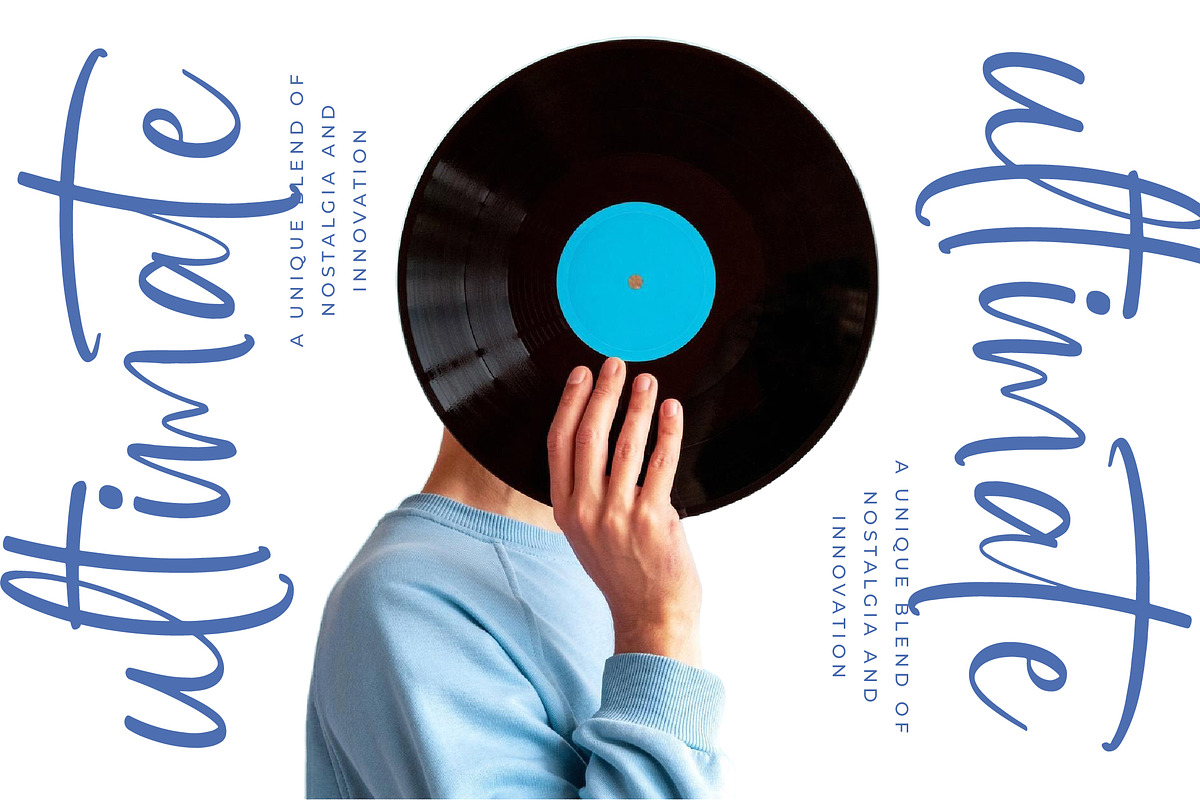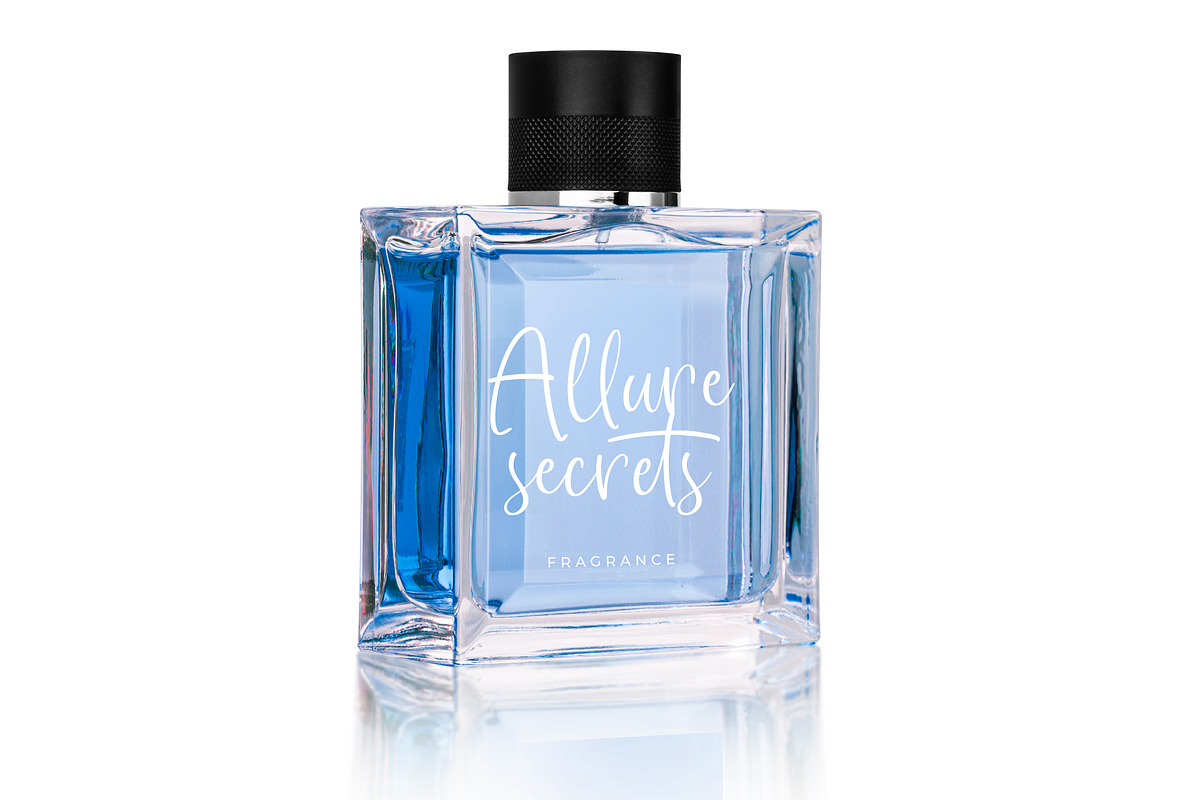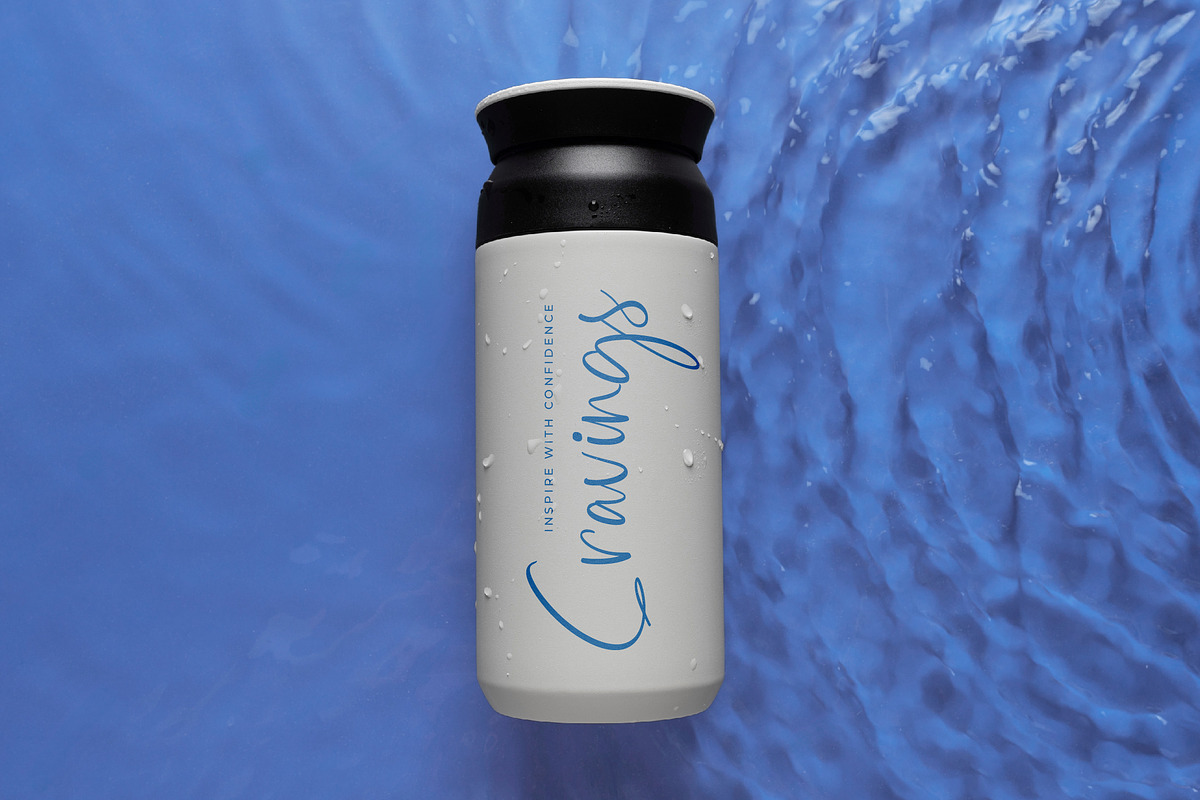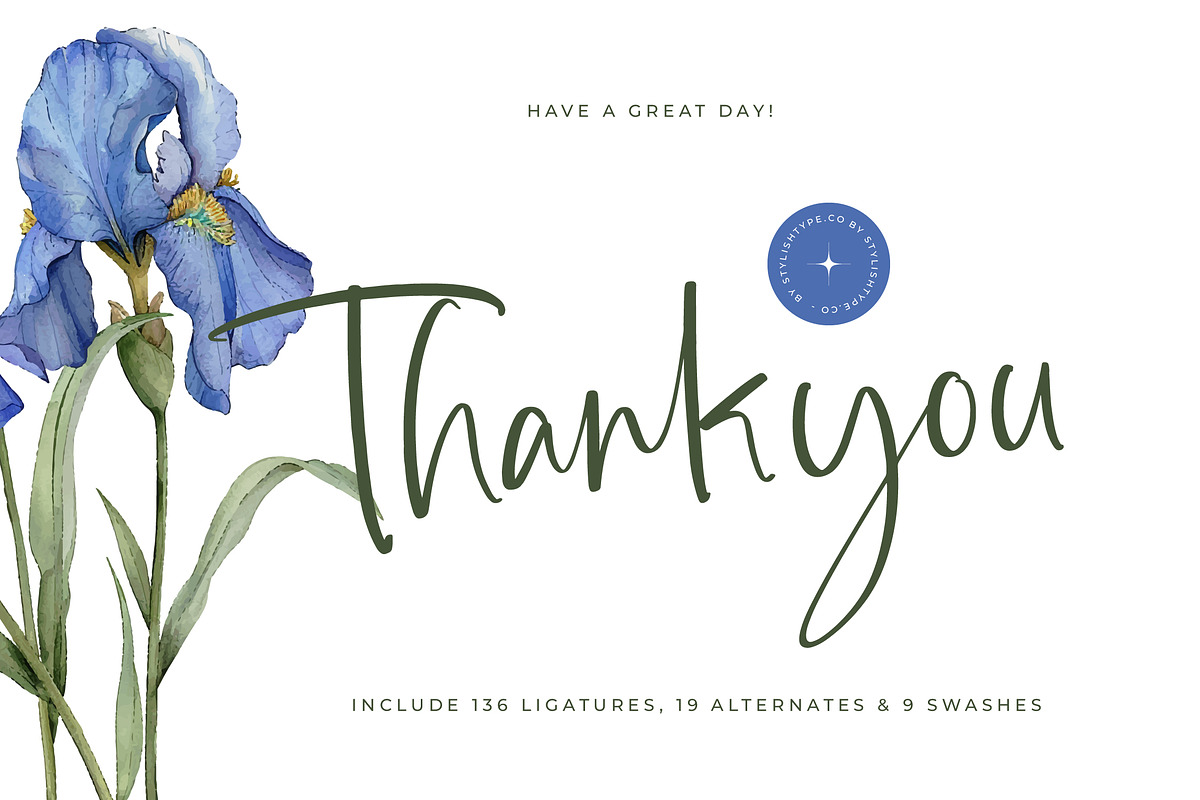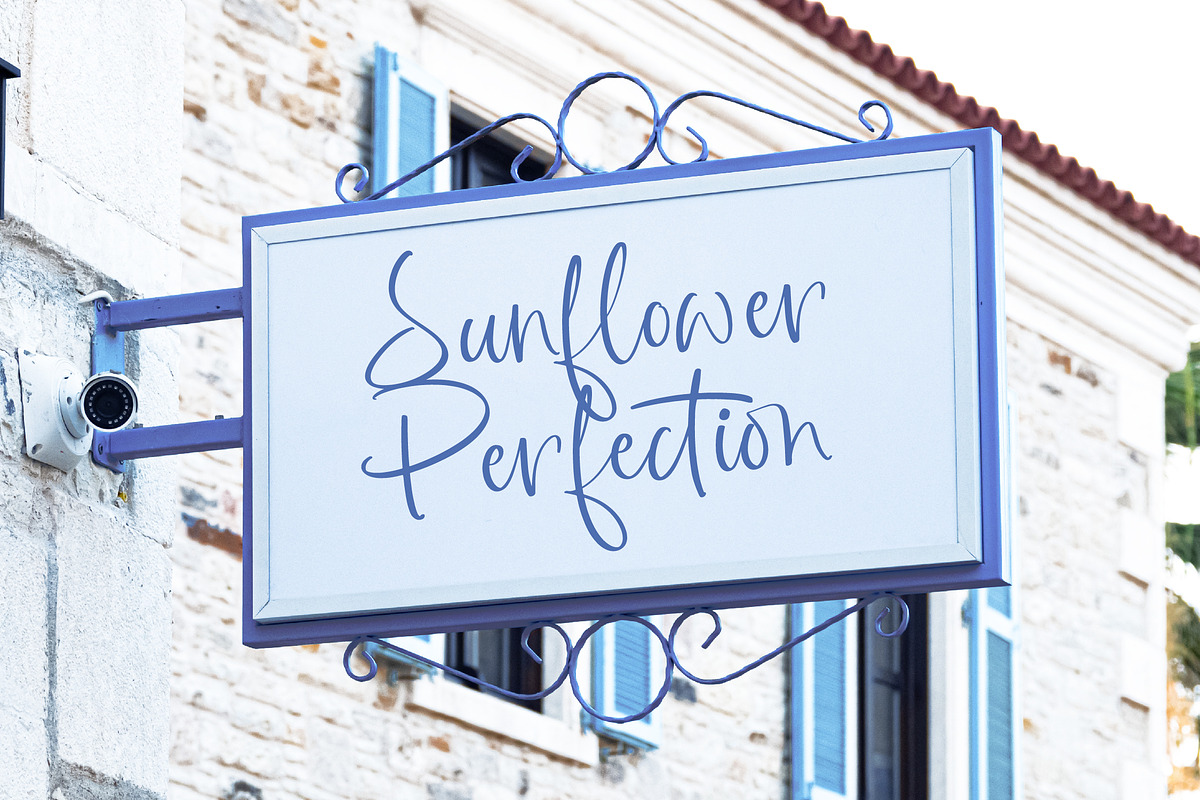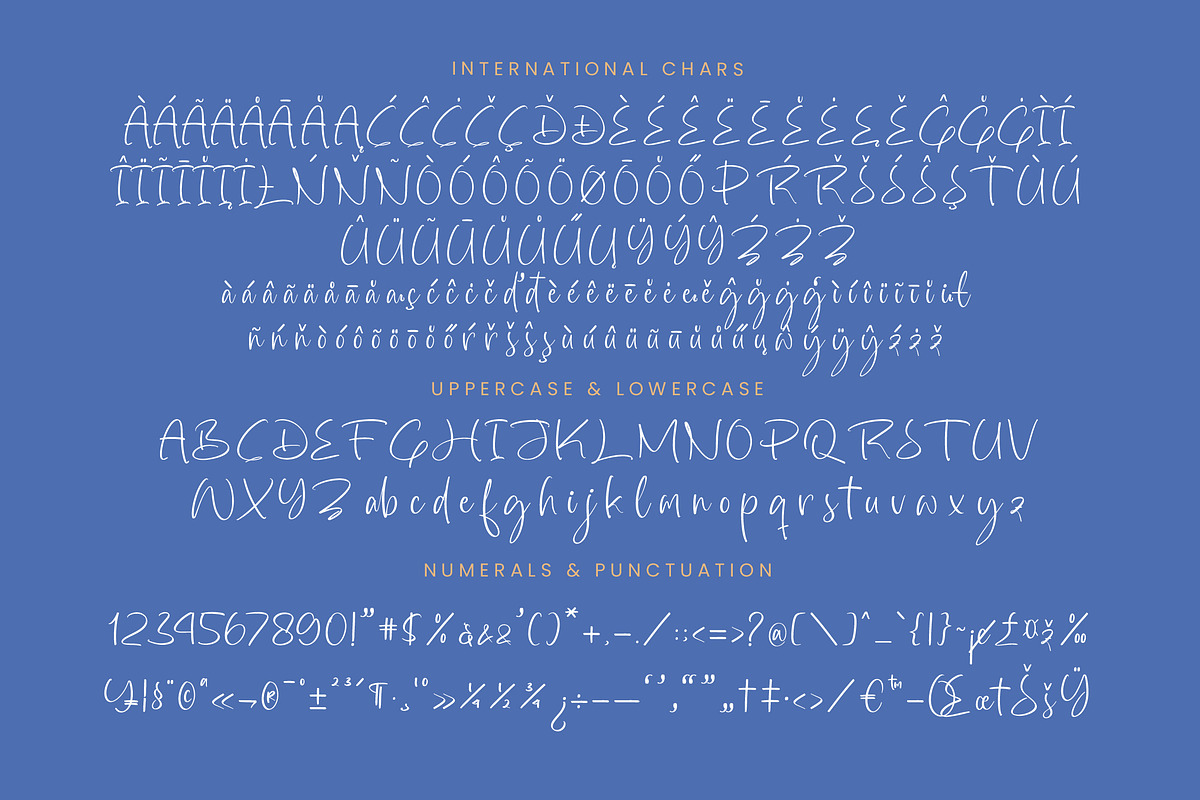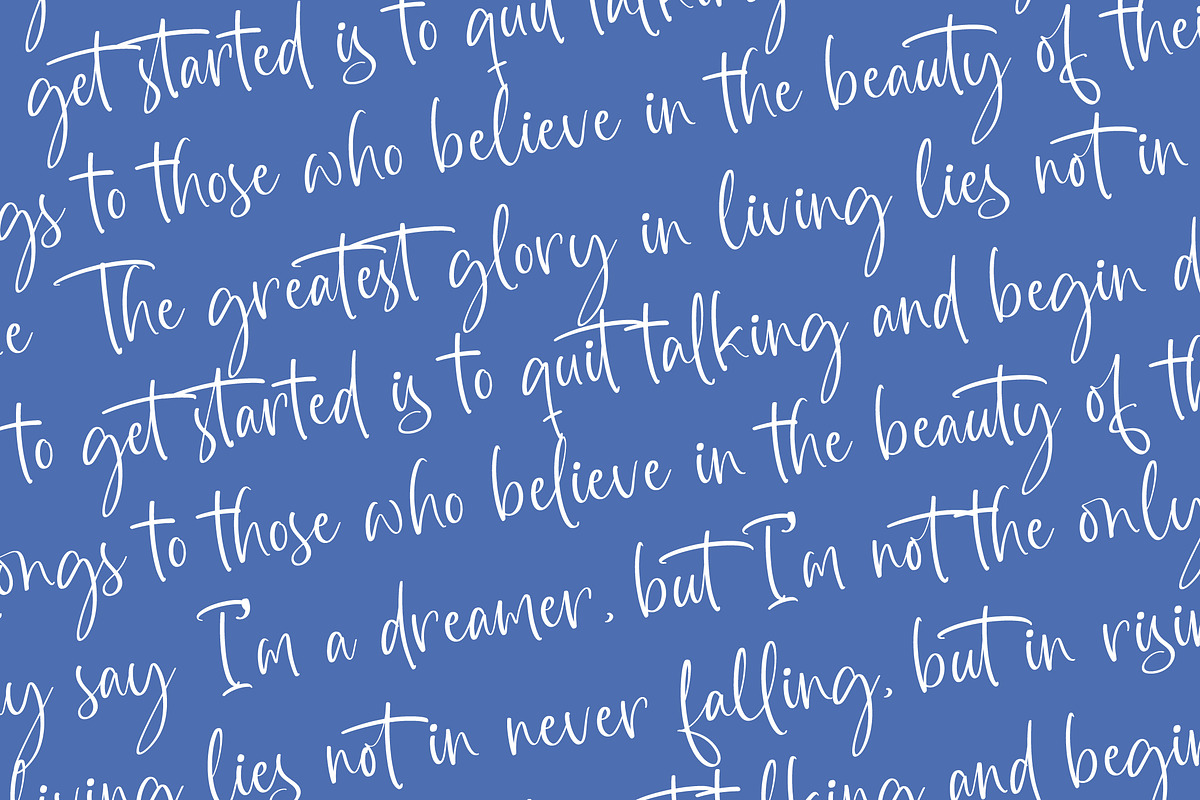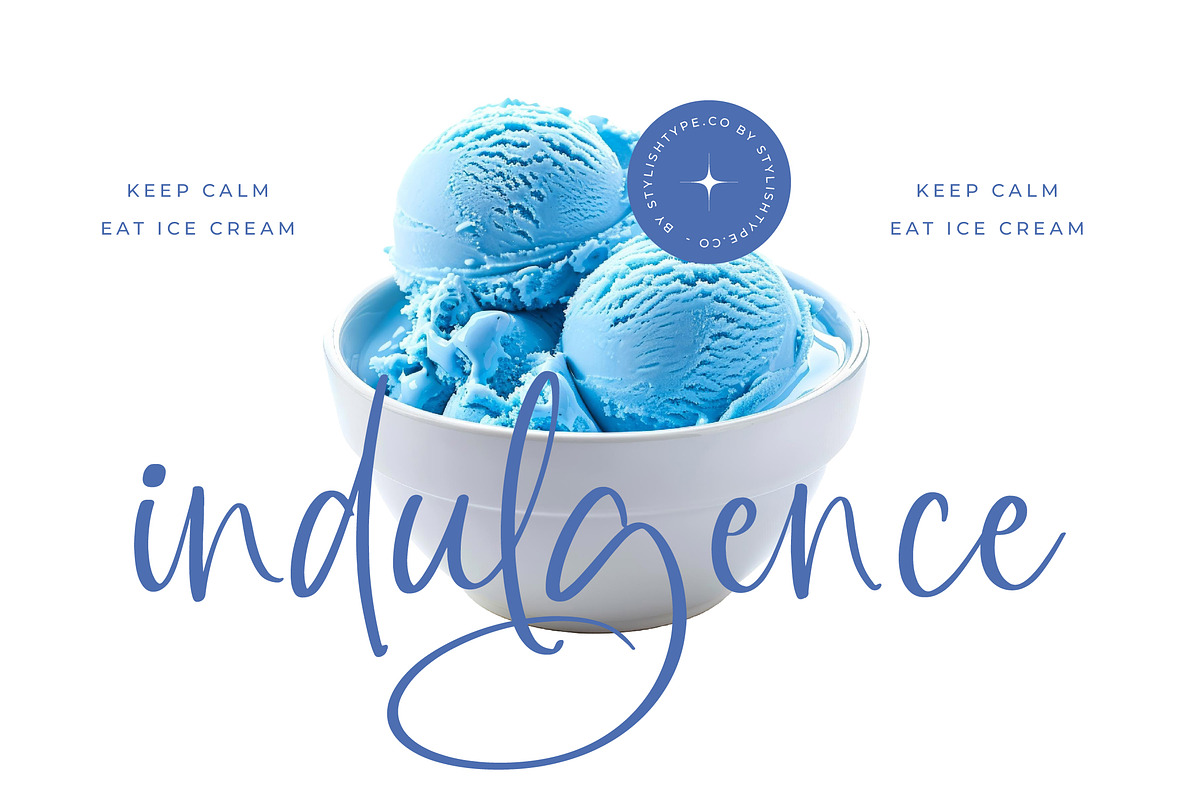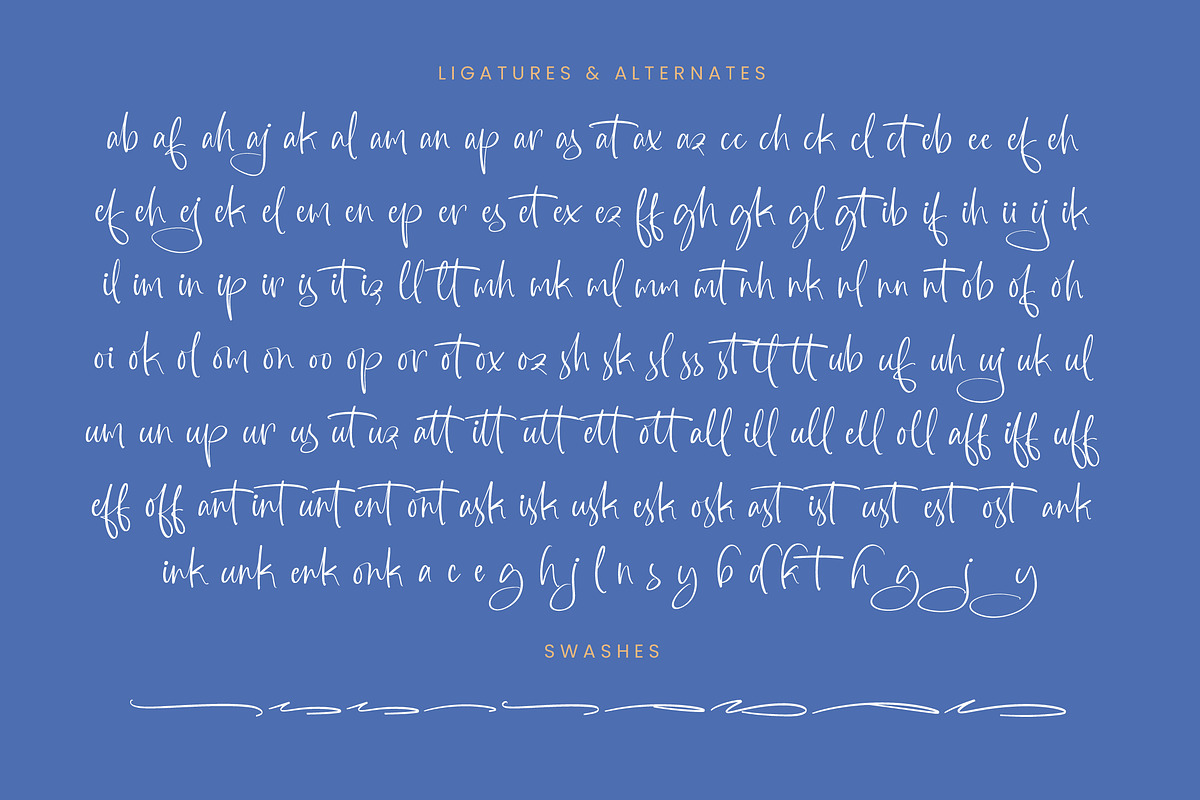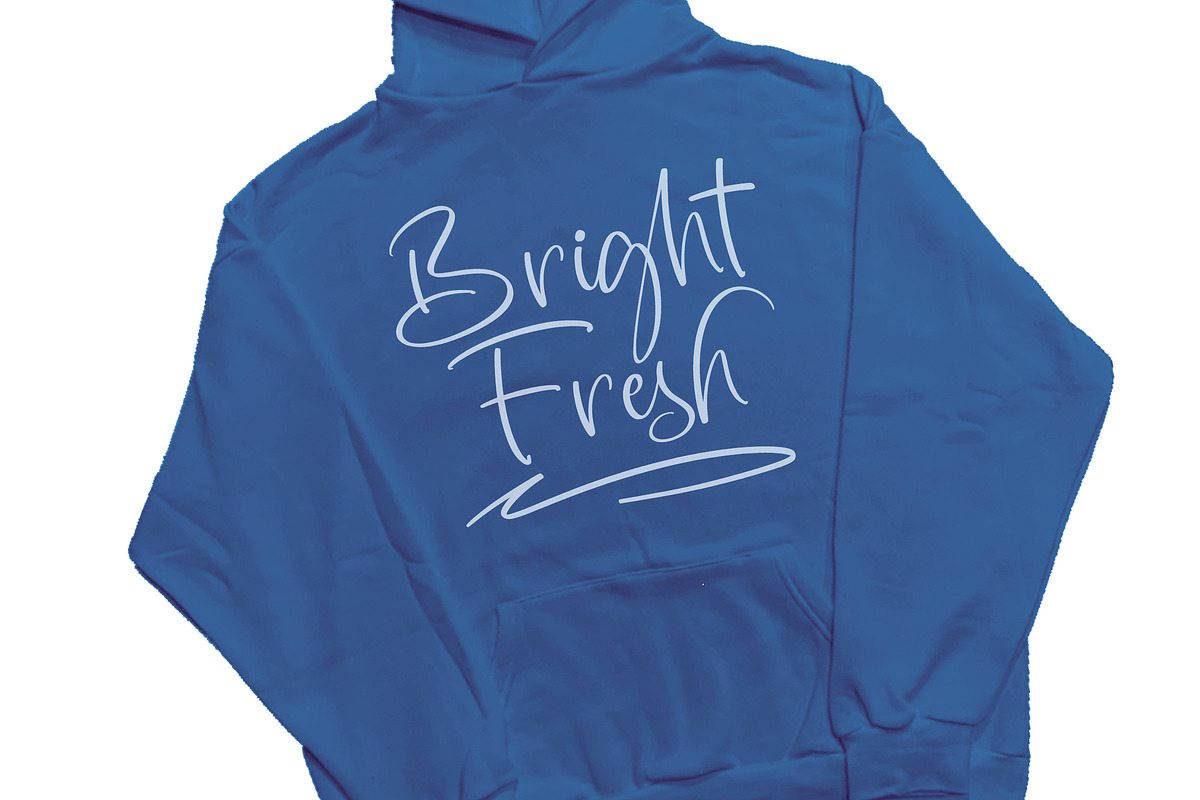
Highest Bluebell Natural Handwritten
Highest Bluebell - Natural Handwritten Font , from Stylishtype.Co , Suitable for any projects such as: logos, branding projects, homeware designs, product packaging, mugs, quotes, posters, shopping bags, t-shirts, book covers, name card, invitation cards, greeting cards, label, photography, watermark, special events, and all your other luxury and beautiful projects that need a Luxury Script taste.
- 136 Ligature 19 Alternates & 9 Swashes